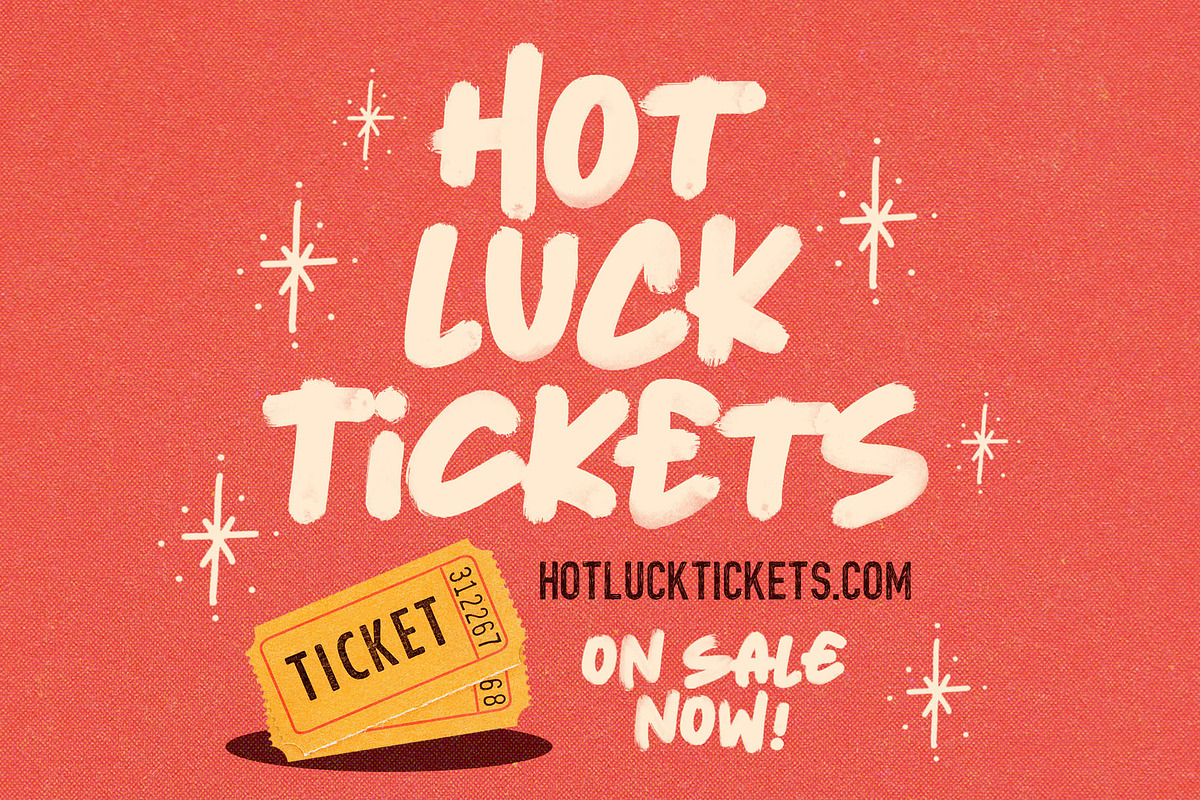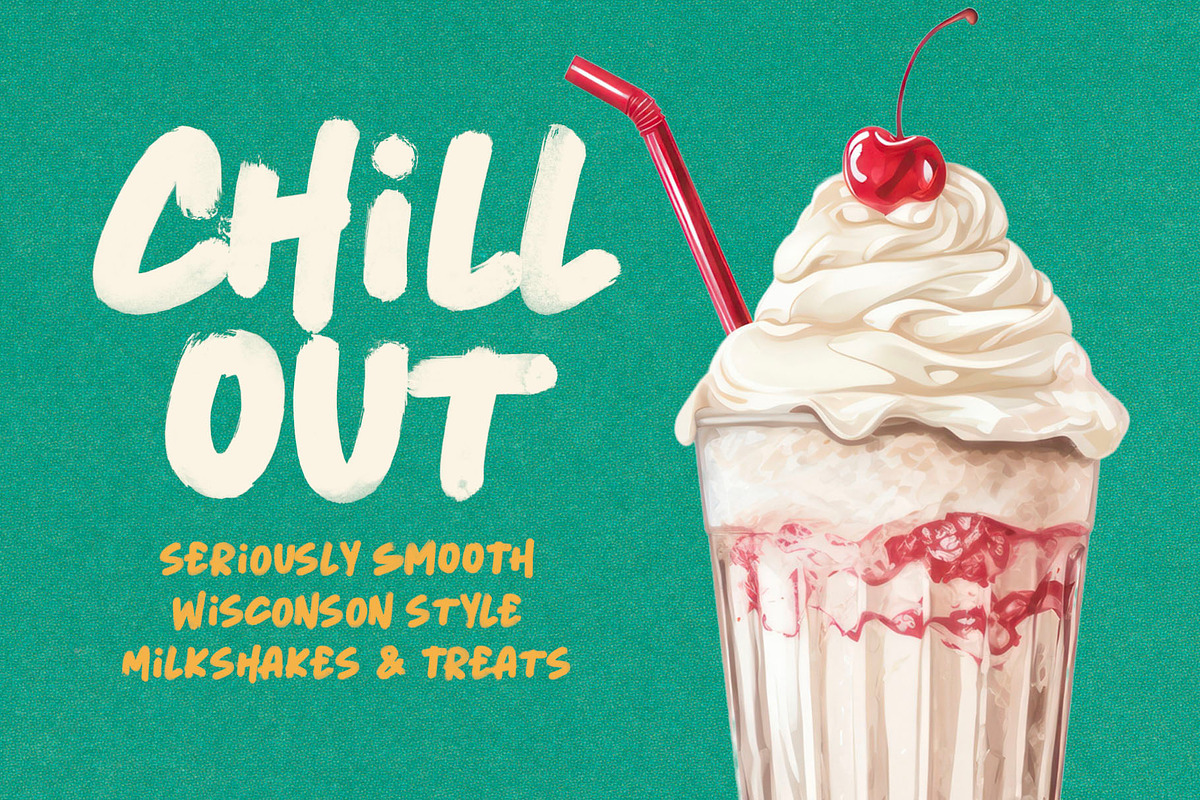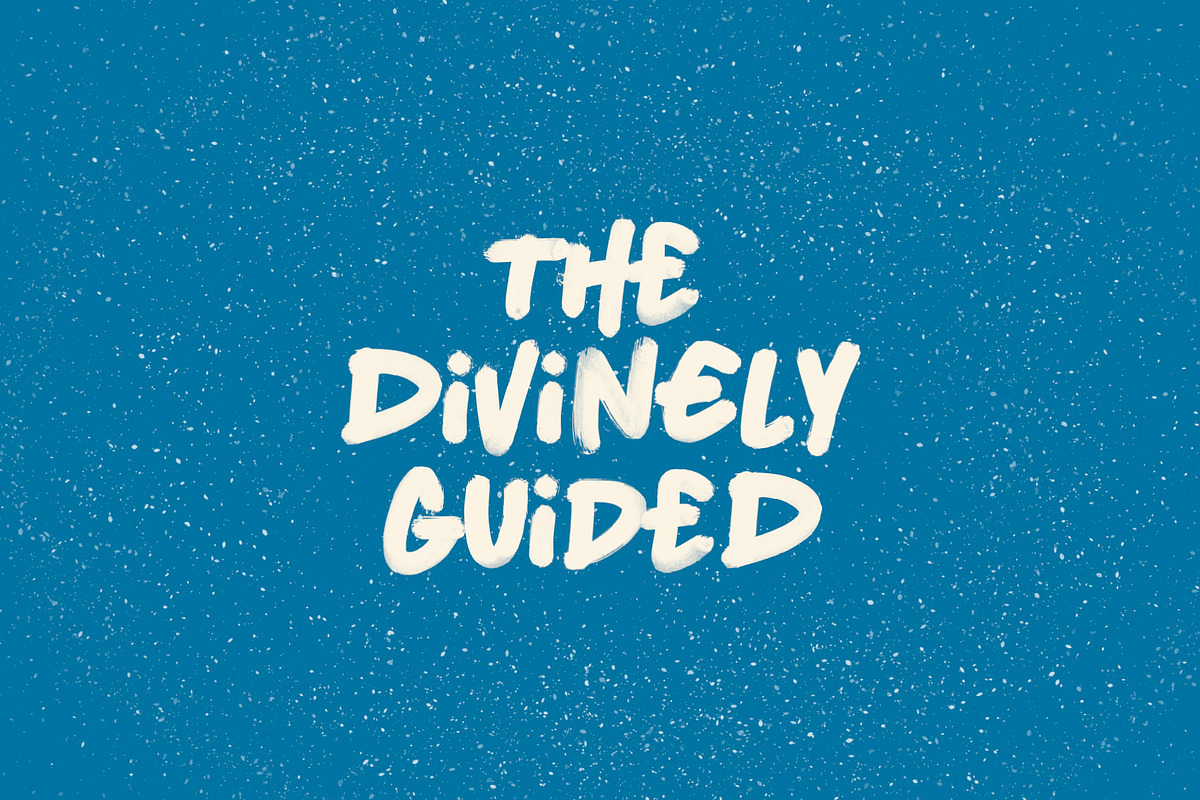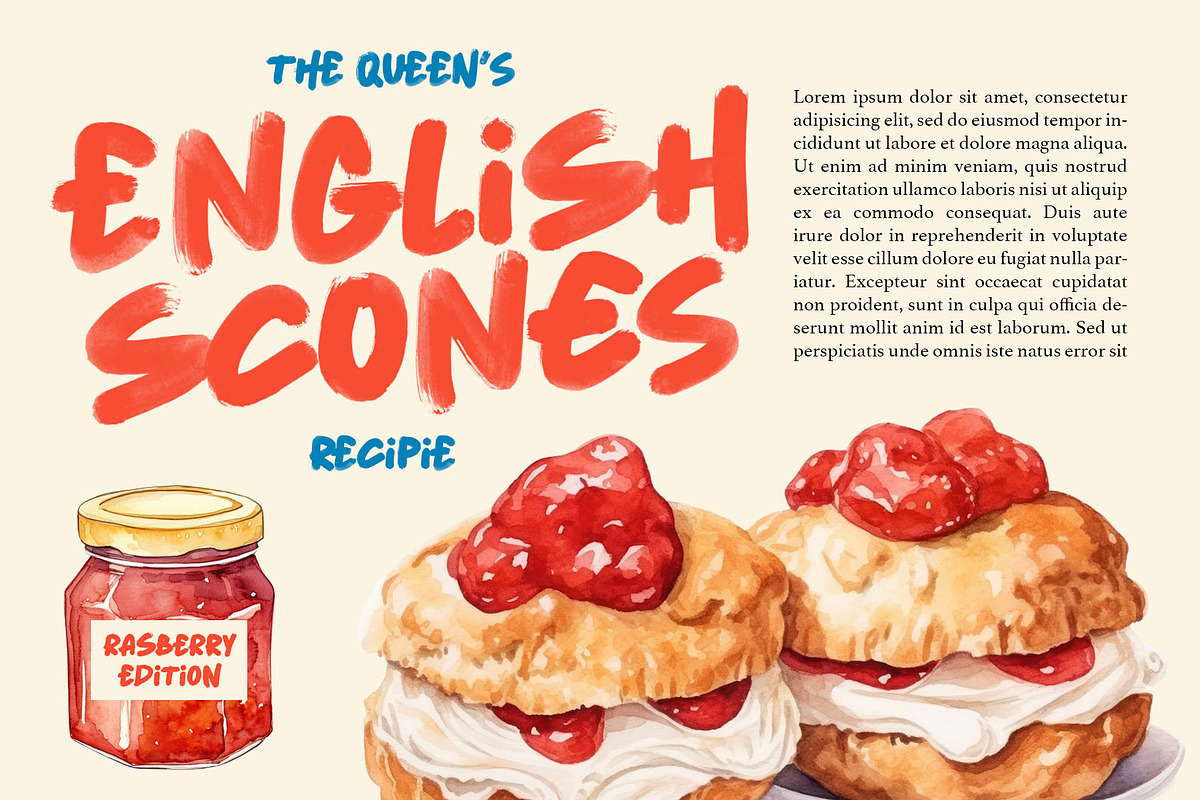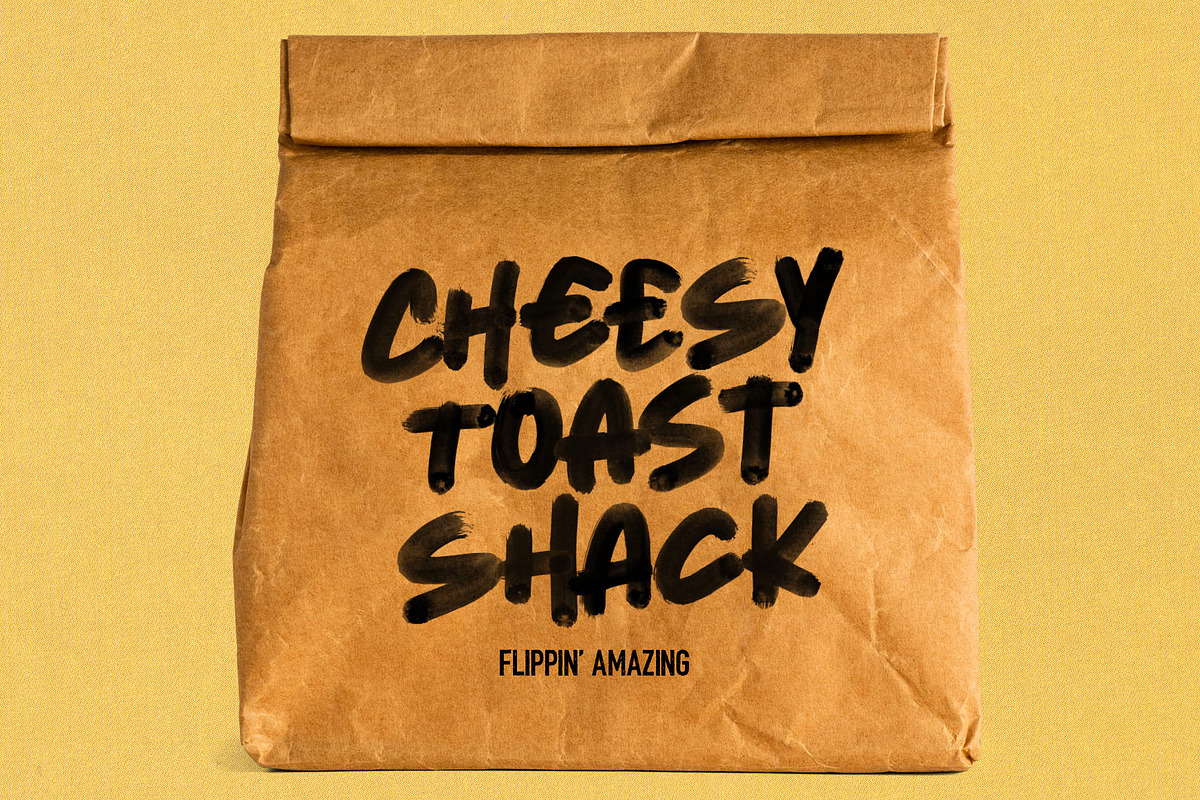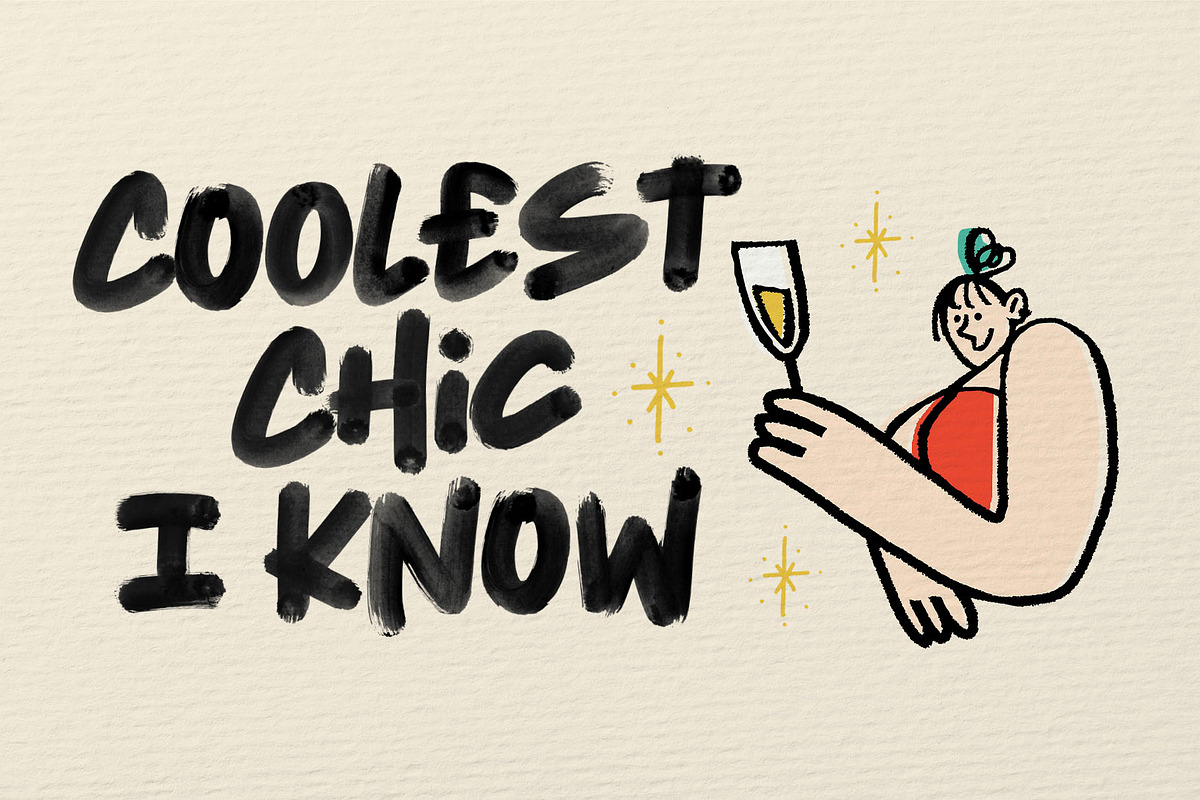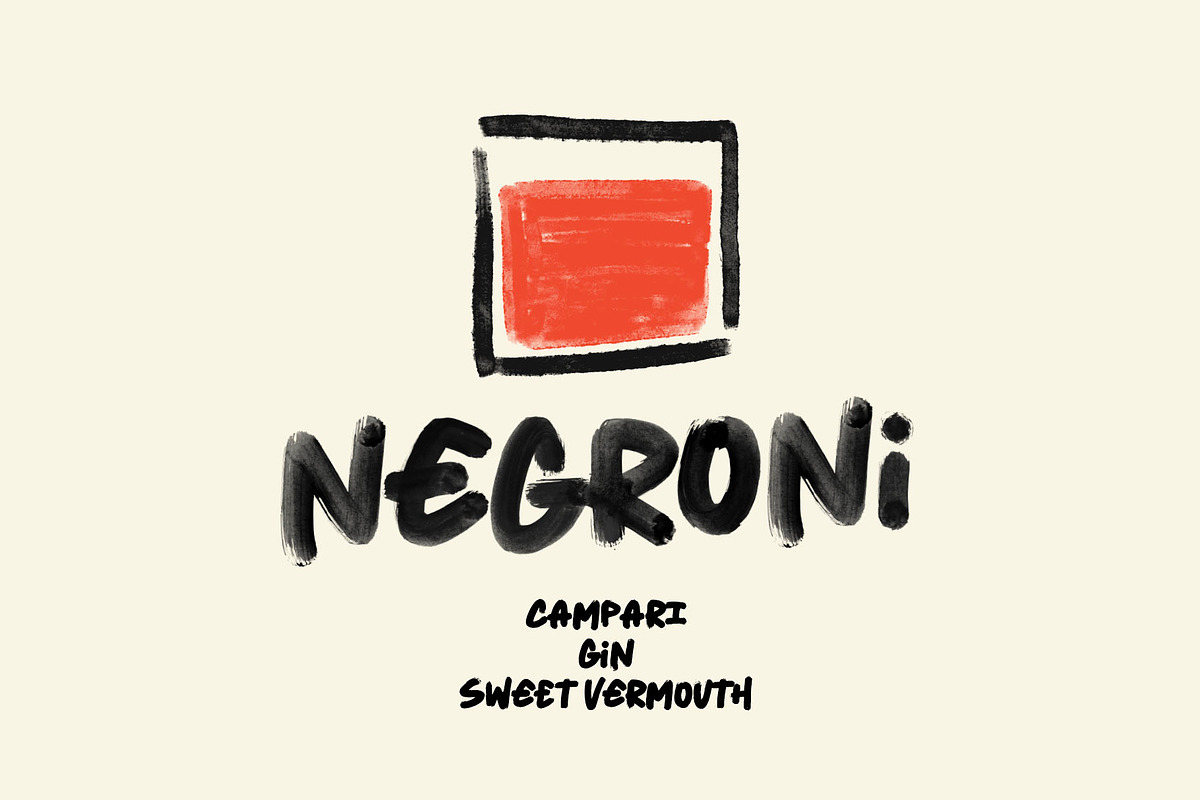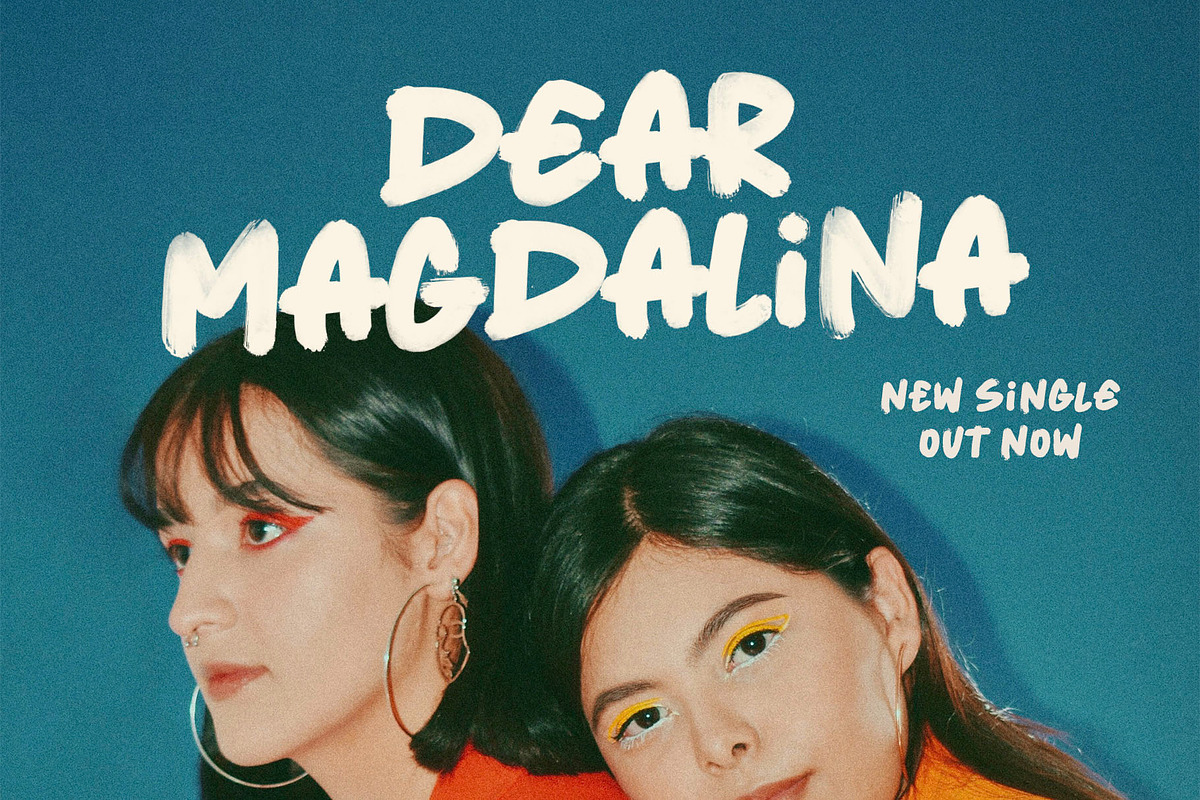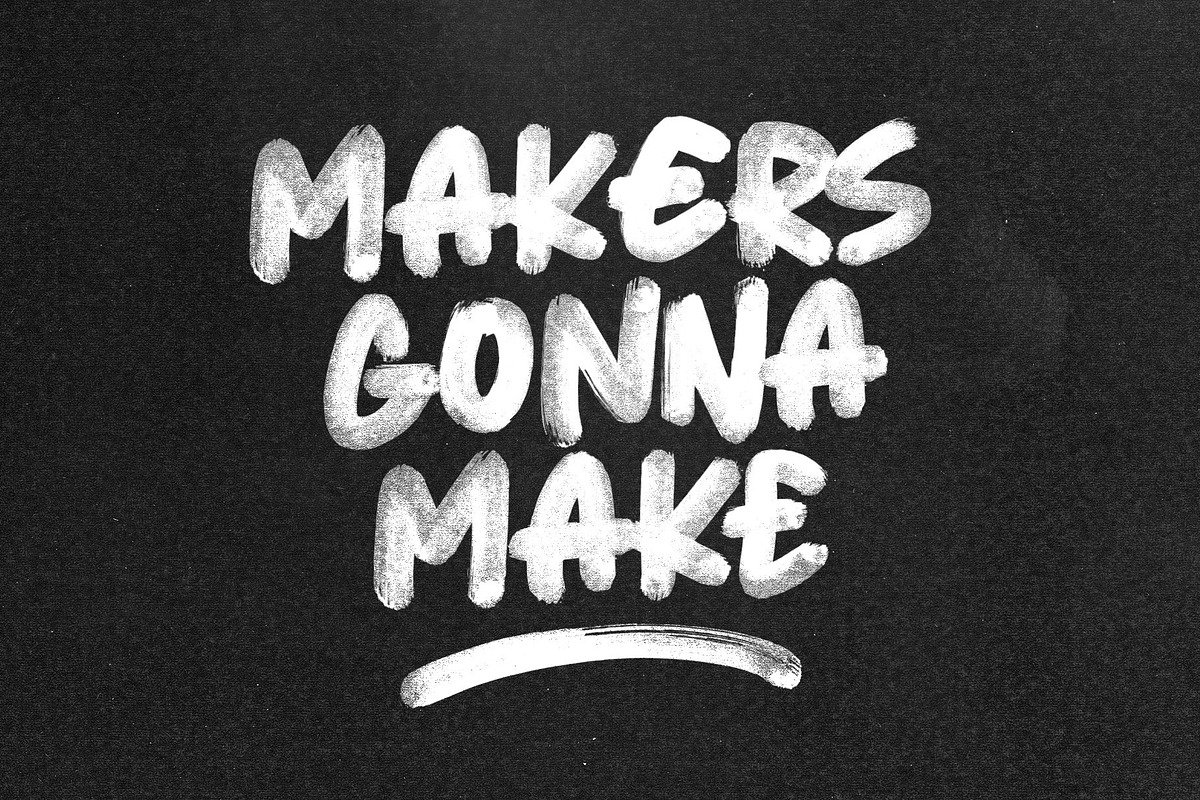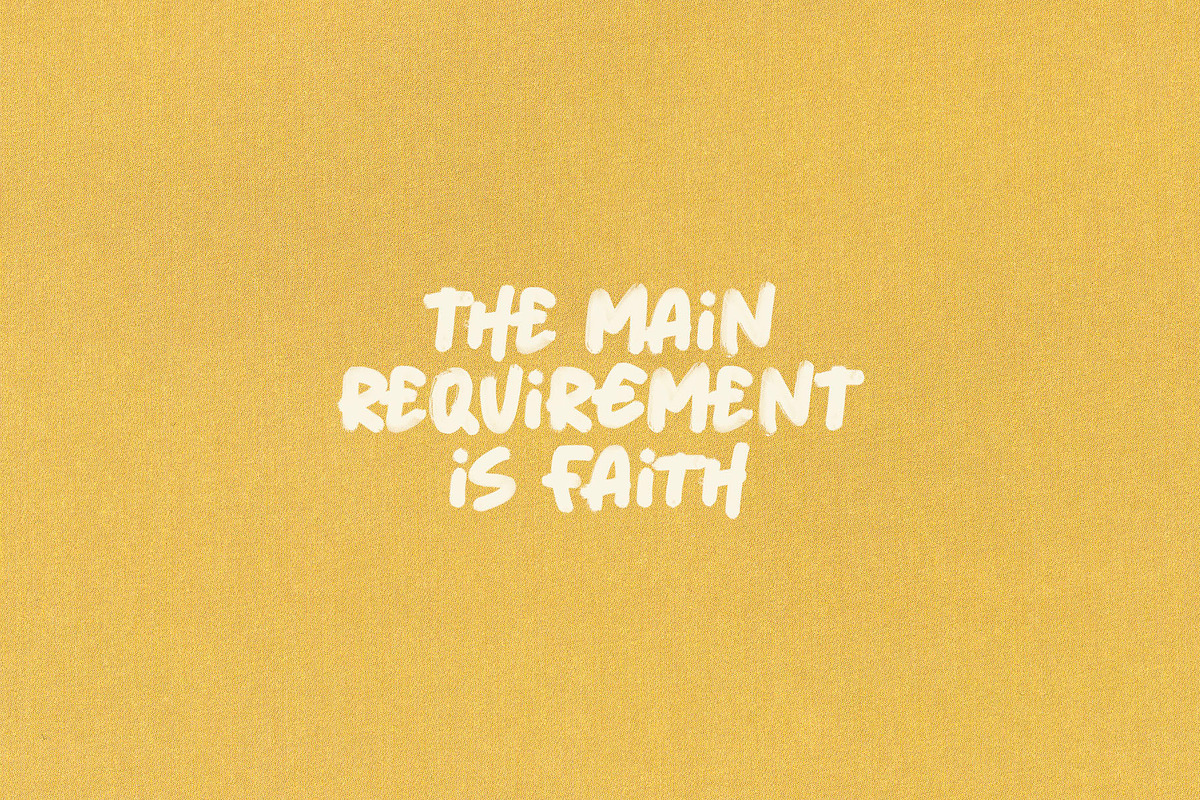
Midnight Ink Typeface
Introducing Midnight Ink! A hand lettered font using Foam brush. Rich in texture with a groovy twist to it. Inspired by retro and vintage food ads in the 70s and 80s.
A full alternate set of A-Z characters Accessible by switching between upper and lowercase sets. Switch to the alternate set when you want to apply a different texture to your letter.